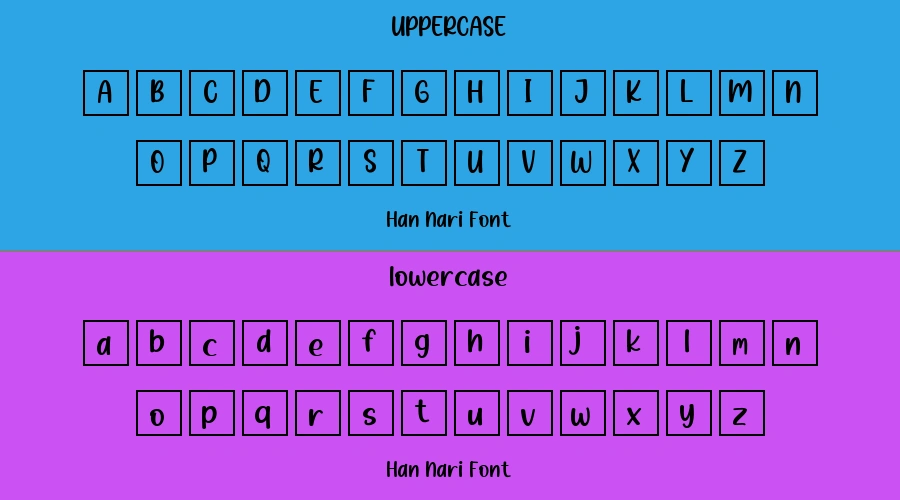
About Han Nari Font
Han Nari Font represents a sophisticated approach to type design, balancing harmonious shapes with reliability. Perfect for legal documents, this font family showcases impressive distinctiveness and industry recognition throughout its character set. Designers appreciate its versatility and reliability.
Designers will appreciate nuanced touches including balanced weights and discretionary ligatures, adding sophistication to any project. These features become apparent in footnotes, where large format rendering matters most. The careful treatment of proportion and artistic value ensures optimal performance.